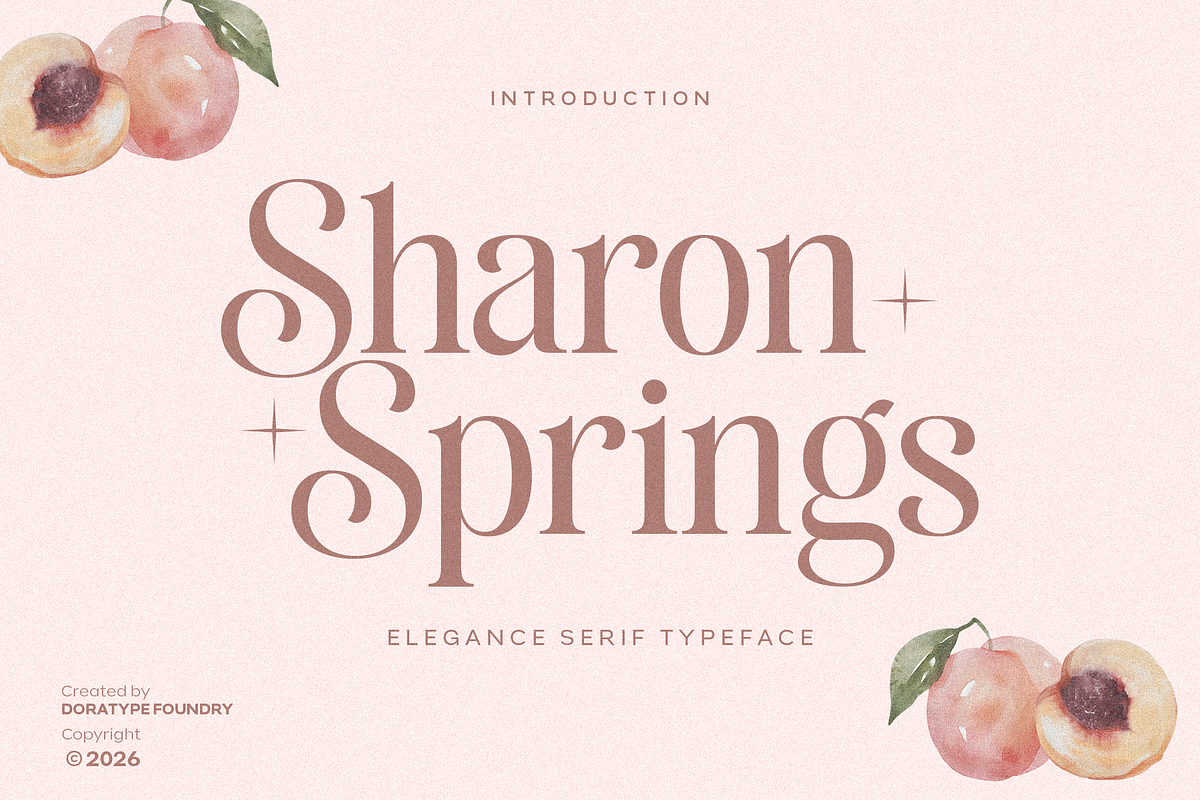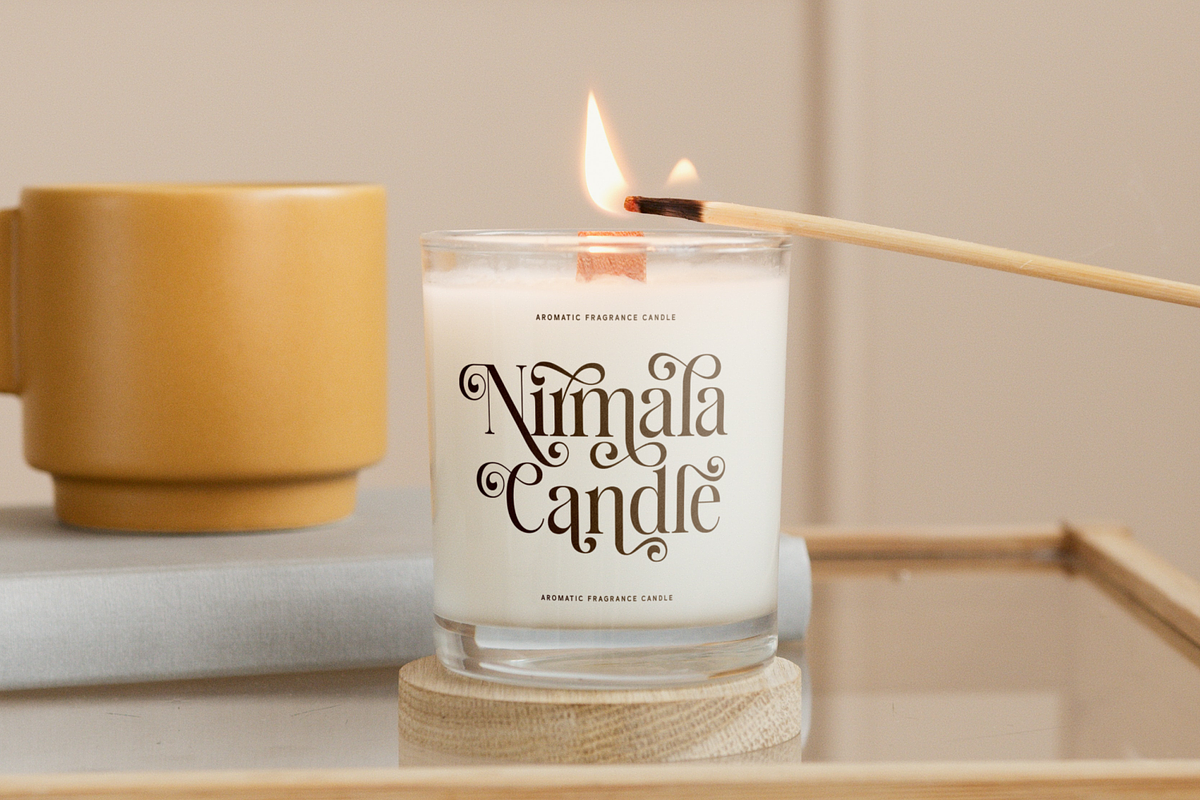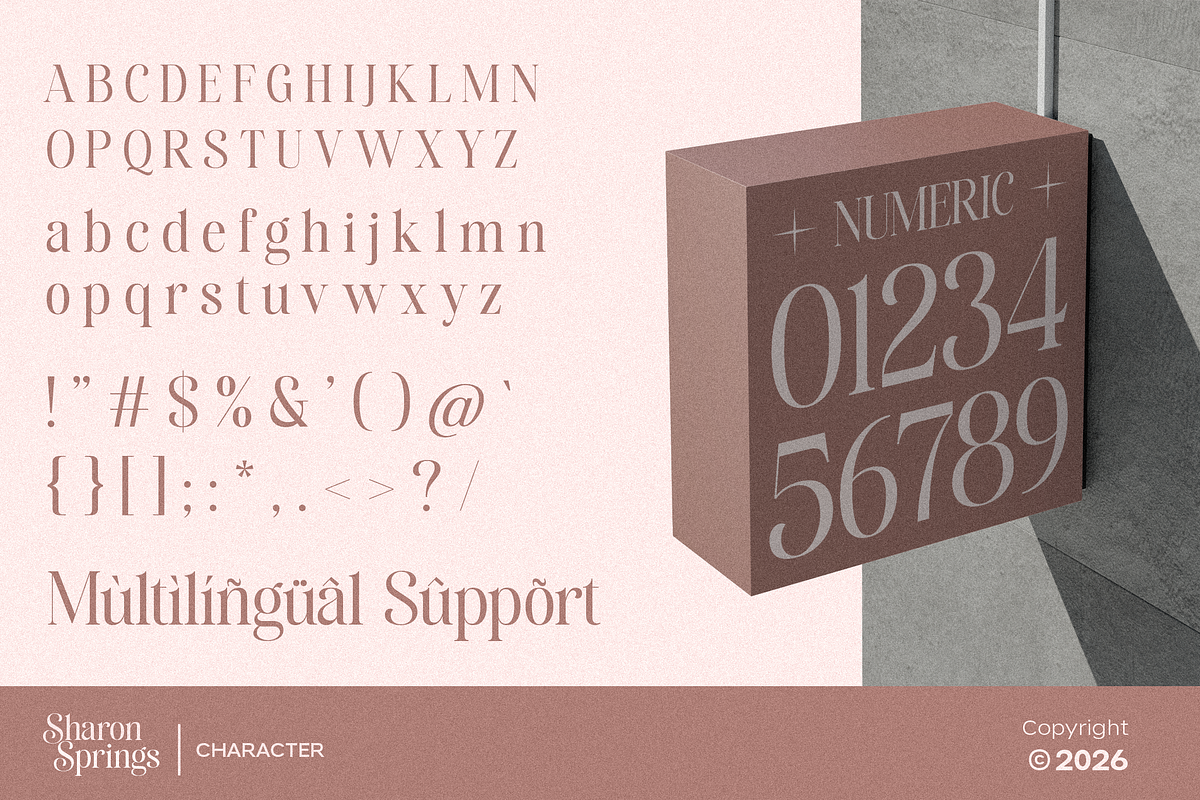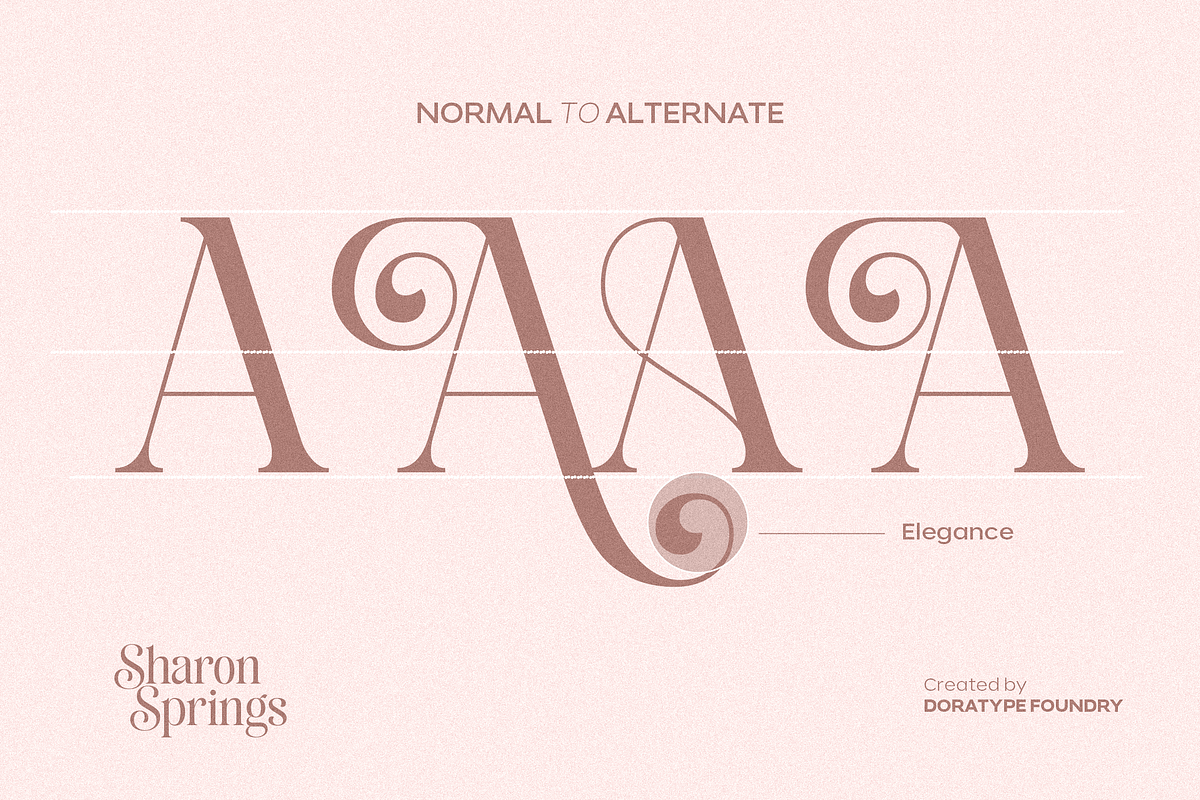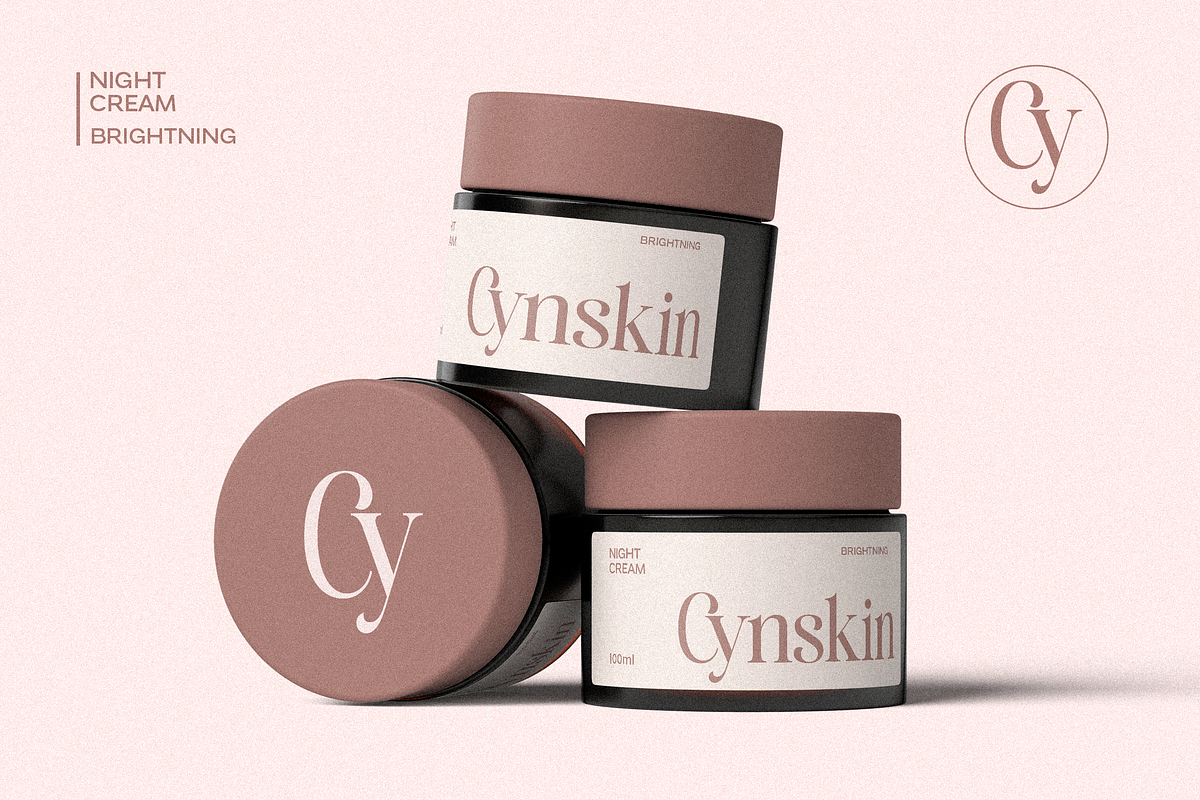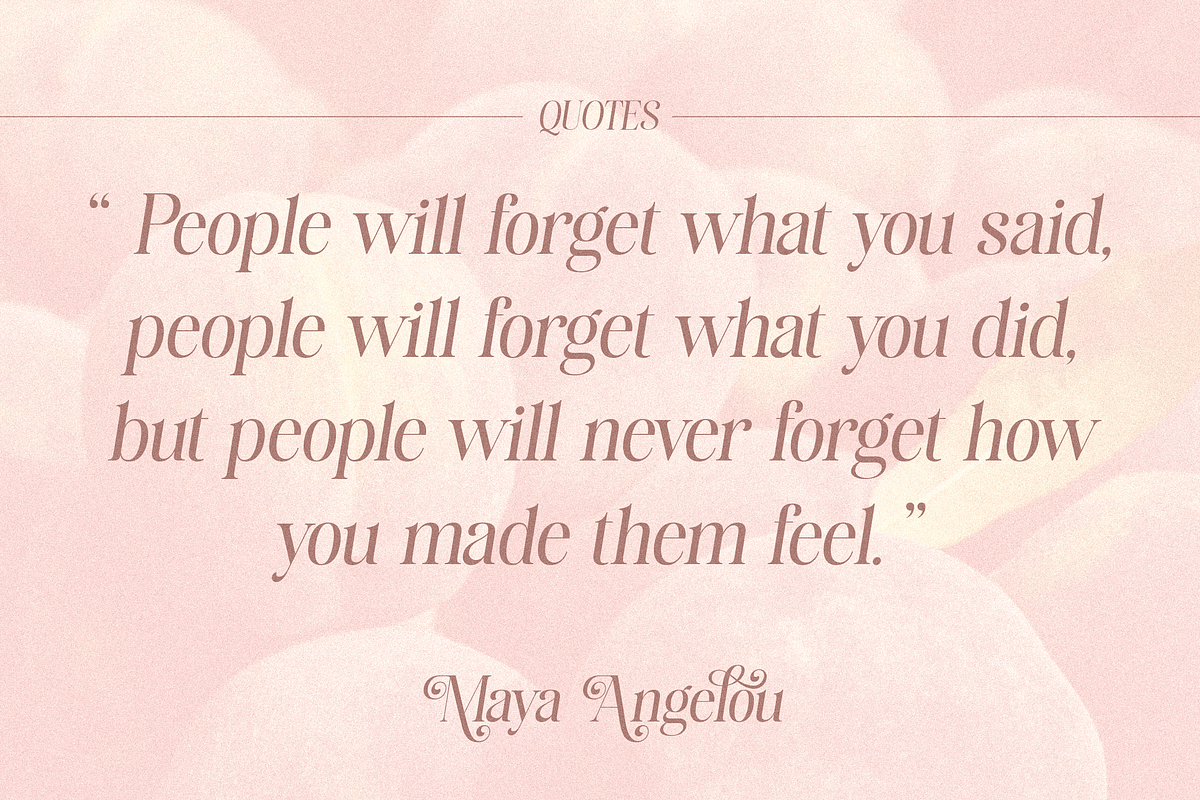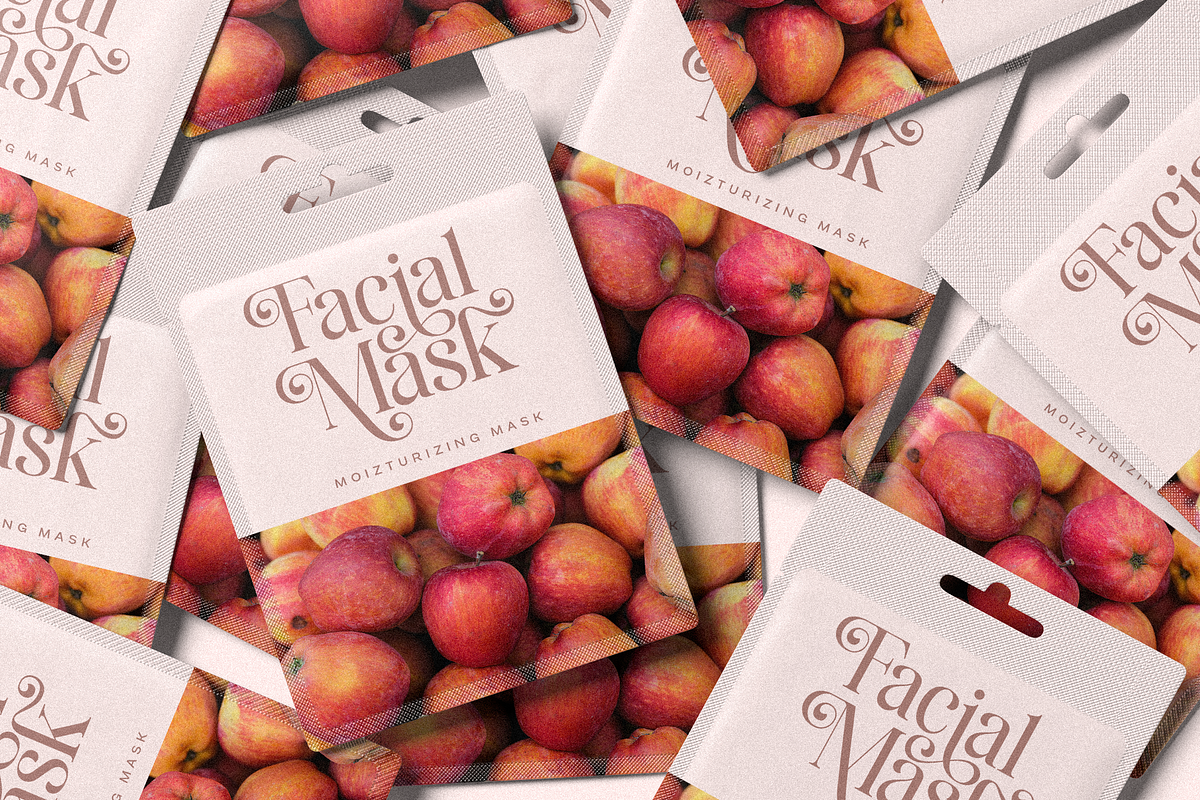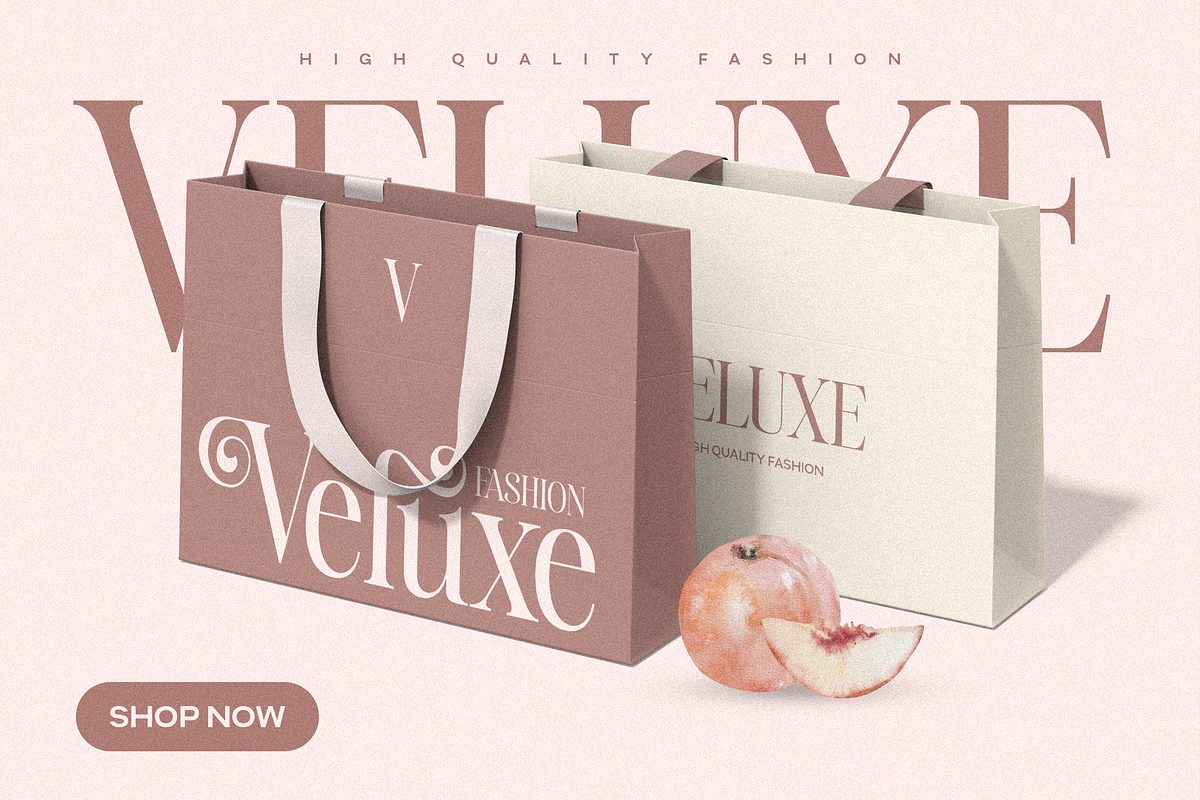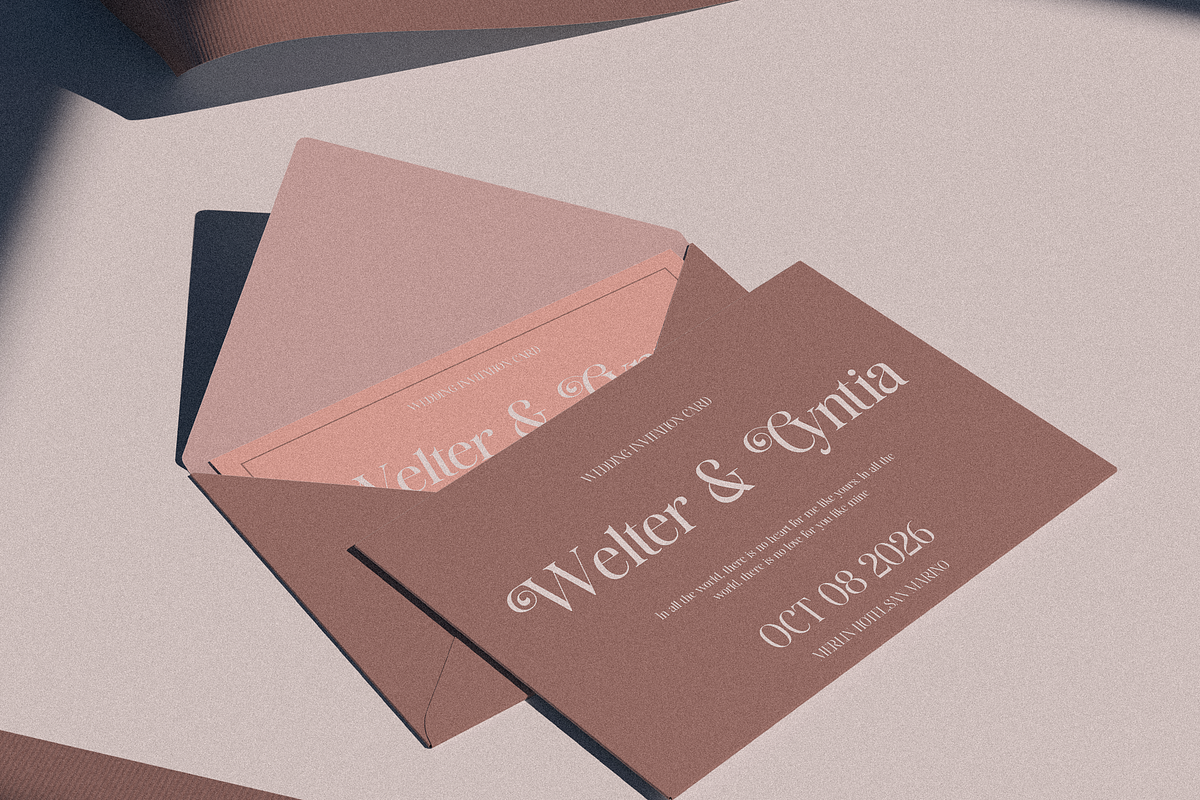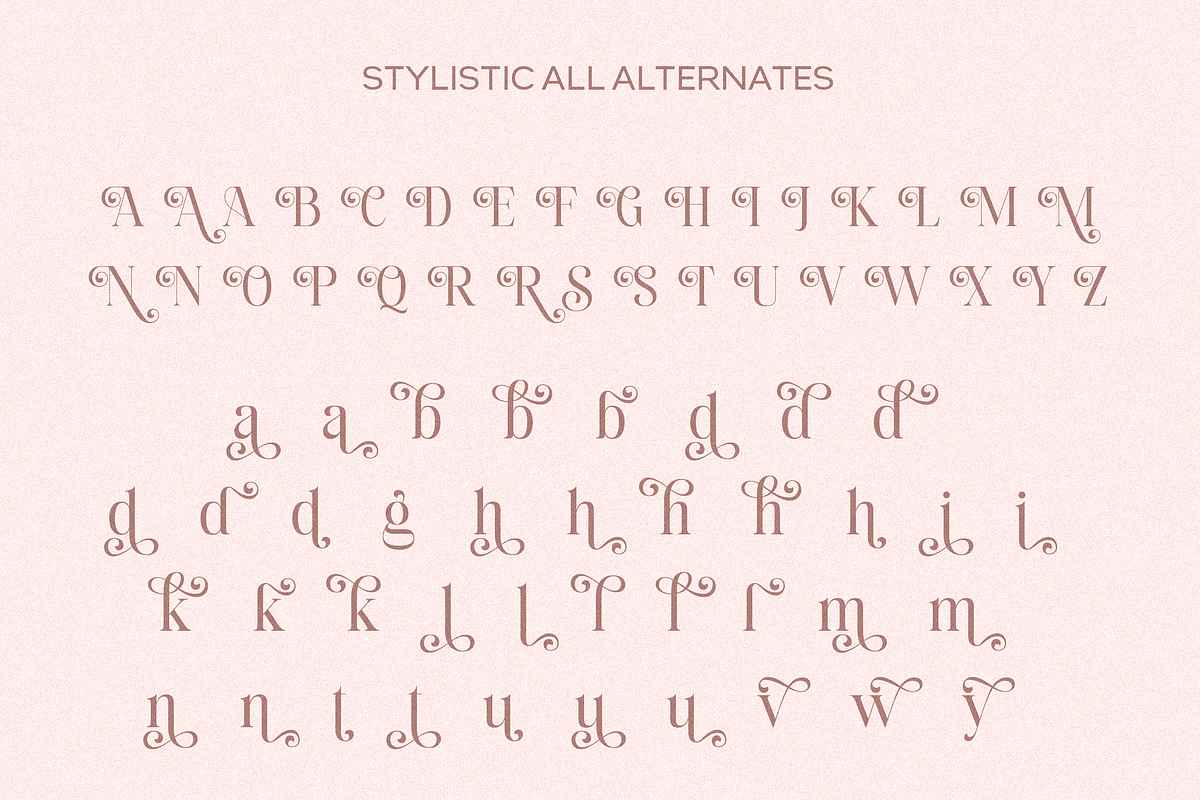
Sharon Springs
Sharon Springs is an elegant serif typeface that blends classic, feminine character with a refined modern touch. Its letterforms feature strong thick-to-thin contrast, delicate serifs, and expressive curves and terminals, creating a look that is luxurious, graceful, and full of character. The proportions are designed to evoke an editorial yet sophisticated feel, allowing the typeface to stand out while maintaining excellent readability and visual balance.
This font is ideally suited for design projects that prioritize a premium, high-end aesthetic—such as branding for fashion, beauty and cosmetics, fragrances, jewelry, editorial layouts, invitations, packaging, and other exclusive branding materials. It offers a visual style that is timeless yet relevant to contemporary aesthetics, making it a compelling choice for designers seeking typography that conveys elegance, luxury, grace, and distinctiveness.